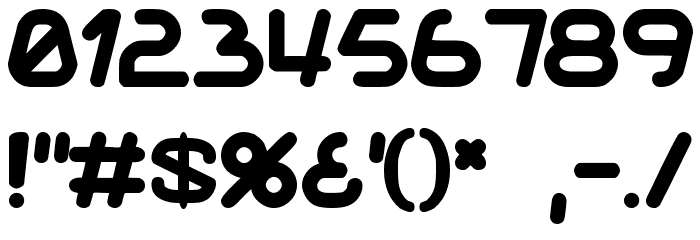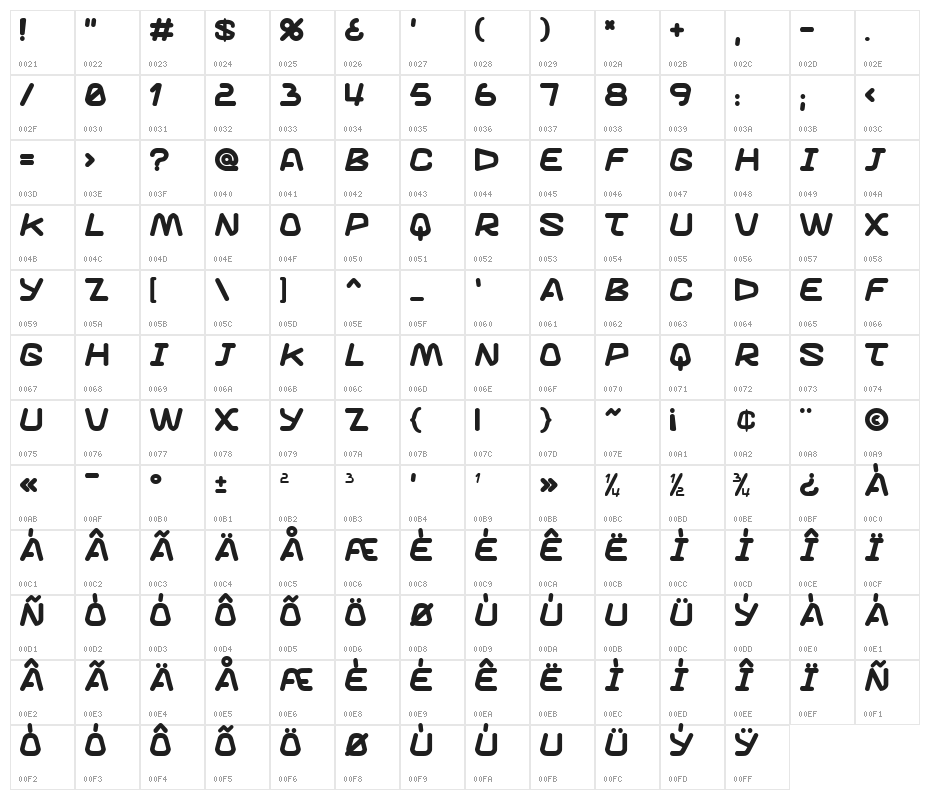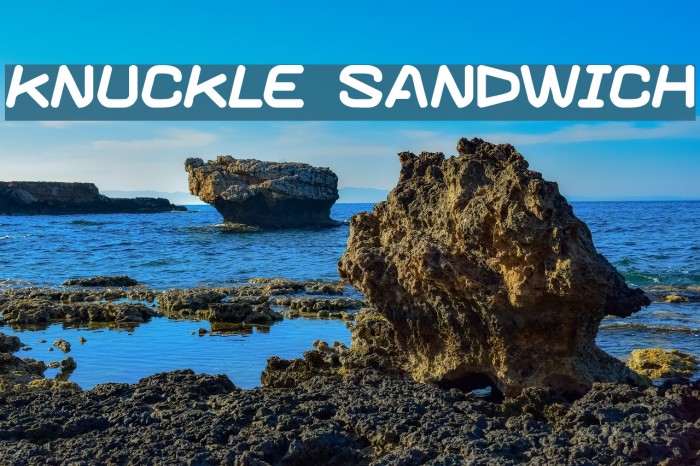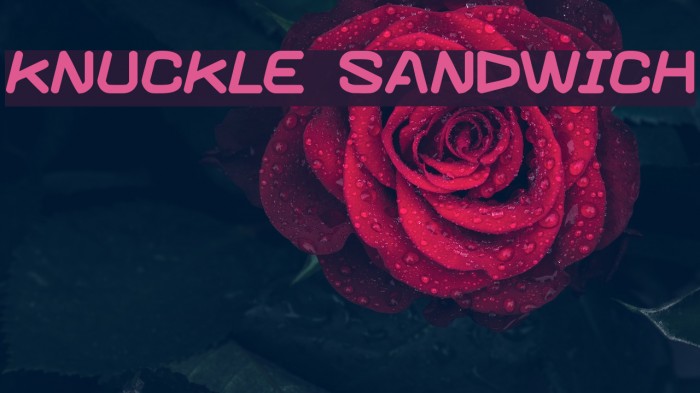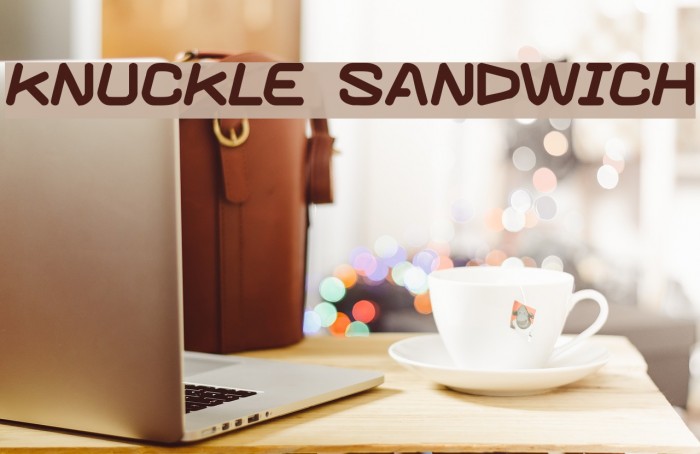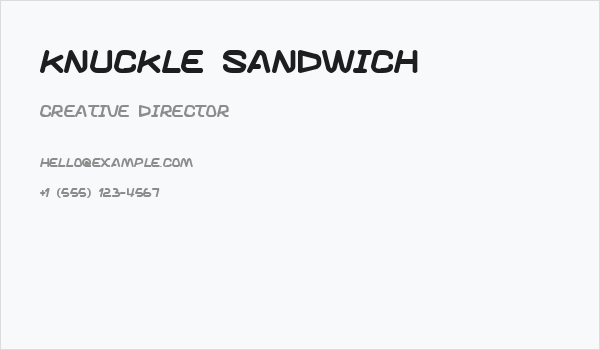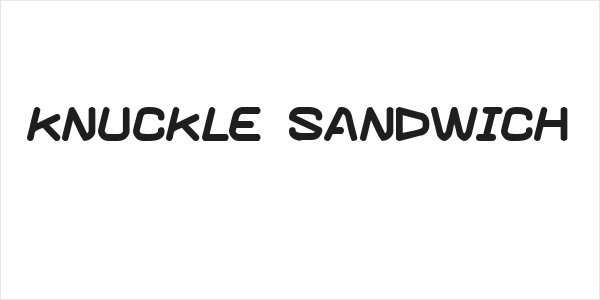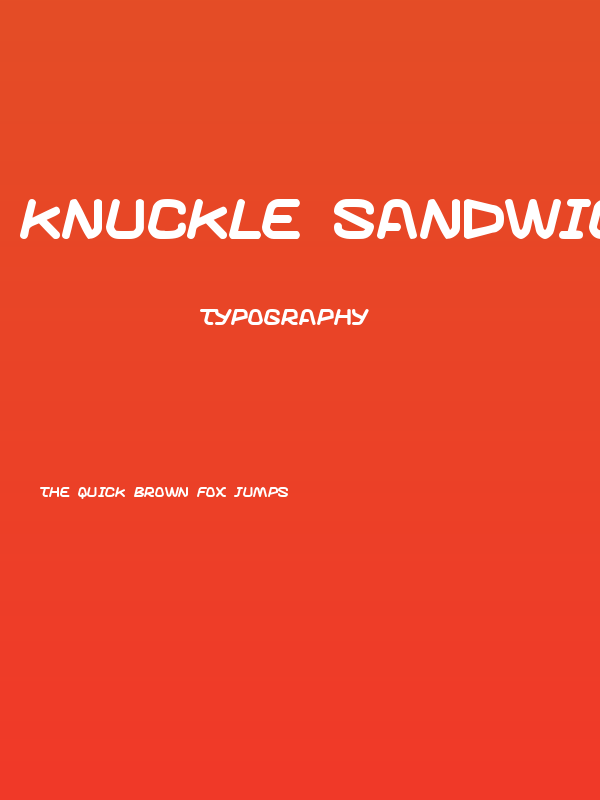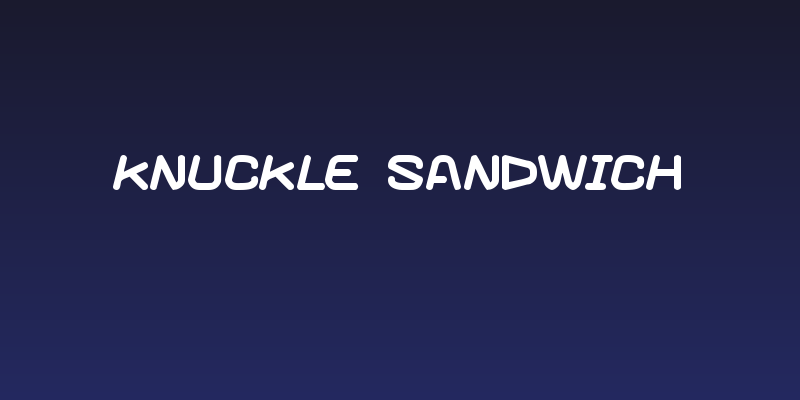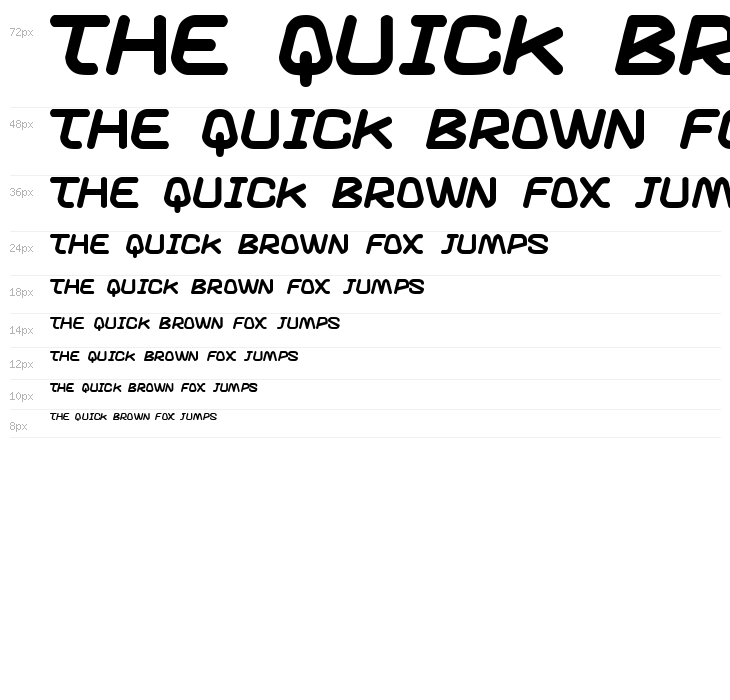
Knuckle sandwich Font
Knuckle sandwich Description
This font features a bold and rounded style with a playful, cartoonish appearance. The characters are thick and slightly condensed, giving them a strong presence on the page. The rounded edges and smooth curves create a friendly and approachable look, making it suitable for informal and fun designs. The uppercase and lowercase letters maintain a consistent style, with the numerals and special characters following the same design principles. The overall impression is one of energy and dynamism, ideal for projects that require a lively and engaging typeface.
| Overall Style | Playful and Cartoonish |
| Proposed Projects | Ideal for children's books, comic strips, playful branding, and posters. |